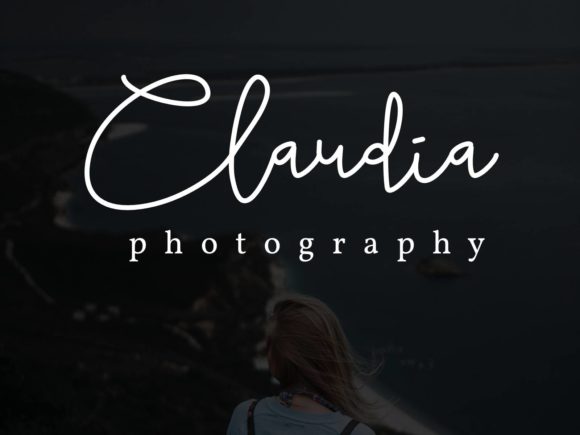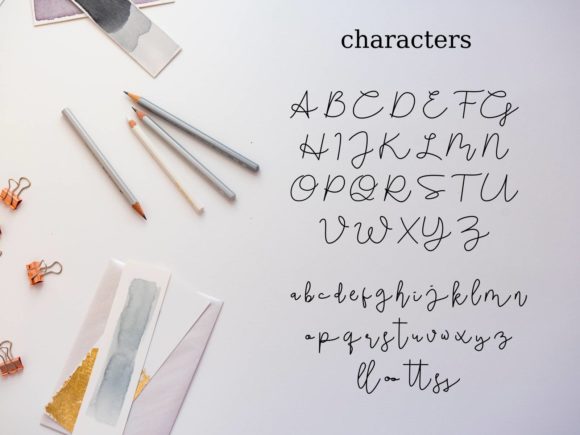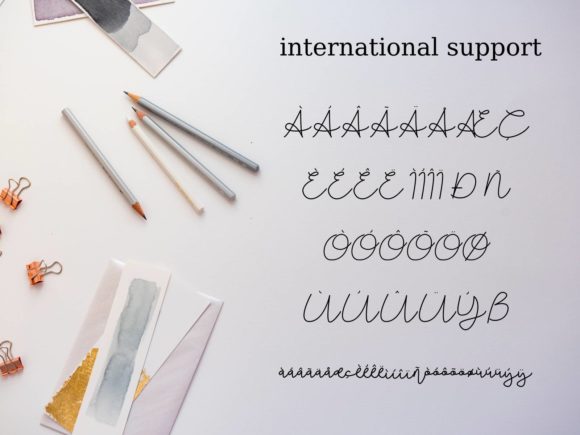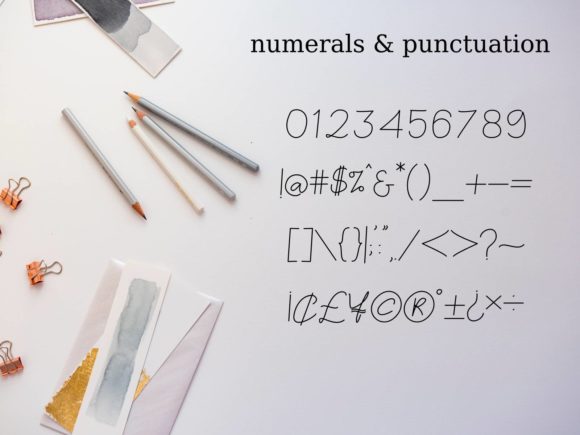
Introducing Classico Font: Elevate Your Designs with Elegance and Sophistication
In the world of typography, a well-crafted font can make all the difference in elevating your designs from ordinary to extraordinary. If you’re on the hunt for a typeface that exudes class, sophistication, and a touch of modern flair, look no further than Classico Font. This stunning monoline script font is designed to inspire and transform your creative projects, offering a unique blend of elegance and contemporary style.
What is Classico Font?
Classico is a meticulously designed monoline script font that boasts a sleek, modern aesthetic. Characterized by its fluid lines and harmonious flow, Classico brings a sense of luxury and refinement to any design it touches. Whether you’re working on a branding project, crafting an invitation, or simply looking to add a touch of sophistication to your digital content, Classico Font is the perfect choice.
Key Features of Classico Font
- Monoline Script: Classico’s monoline design ensures a smooth, consistent look that is both elegant and highly legible.
- Modern Feel: With its clean lines and contemporary style, Classico brings a fresh, modern vibe to traditional script typography.
- Unique Design: The font’s distinctive character set and flowing connections make it stand out, offering a unique approach to expressing your creativity.
- Versatility: Classico is incredibly versatile, suitable for a wide range of applications from high-end branding to DIY craft projects.
Why Choose Classico Font?
Choosing Classico Font for your projects comes with numerous benefits. Its sophisticated design not only enhances the visual appeal of your work but also communicates a sense of luxury and attention to detail. Here are a few compelling reasons to select Classico for your next project:
- Elegance: Add a touch of class and sophistication to your designs with a font that speaks of refinement and style.
- Readability: Despite its elegant and cursive nature, Classico maintains high readability, making it suitable for both headings and body text.
- Uniqueness: Stand out from the crowd with a font that offers a fresh take on traditional script typography.
Inspiration and Application Ideas
Classico Font’s versatility means it can be used in a multitude of creative projects. Here are some ideas to get you started:
- Branding and Logotypes: Elevate your brand’s visual identity with a sophisticated and modern typeface.
- Wedding and Event Invitations: Add a touch of luxury and romance to your invitations and stationery.
- Packaging Design: Stand out on store shelves with elegant and eye-catching packaging.
- Digital Content: Enhance your website, blog, or social media graphics with a classy and contemporary font.
- Crafting and DIY Projects: Whether you’re creating handmade cards, scrapbooking, or working on other craft projects, Classico adds a professional and refined touch.
Classico Font is more than just a typeface; it’s a design statement. With its elegant monoline script, modern feel, and versatile application, Classico offers designers and crafters a powerful tool to elevate their creative projects. Whether you’re aiming for sophistication, elegance, or simply looking to add a unique touch to your designs, Classico Font is an excellent choice. Get inspired by its unique design and approach, and watch your projects transform with the class and style that Classico brings.